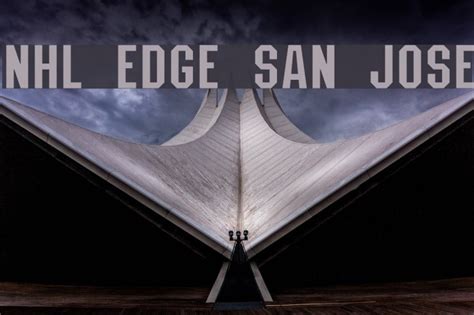
NHL Edge San Jose Font: A Deep Dive
Hey guys! Ever wondered about the specific font used on the San Jose Sharks’ jerseys and other official merchandise? Well, you’ve come to the right place. Let’s dive deep into the world of the NHL Edge San Jose font , exploring its origins, characteristics, and how it contributes to the team’s overall branding. Understanding the nuances of a team’s visual identity can really enhance our appreciation for the sport and the effort that goes into crafting a consistent and recognizable image. So, buckle up, font enthusiasts and hockey fans, as we unravel the mystery behind the San Jose Sharks’ iconic typeface .
Delving into the Origins of NHL Edge Fonts
The NHL Edge font family isn’t just exclusive to San Jose; it’s a broader design initiative implemented across the league. The NHL Edge style was introduced to create a unified, modern, and aggressive look for team branding. You see, consistency is key in sports branding. The font had to be legible on jerseys, merchandise, and digital platforms. The design aimed to capture the speed, power, and dynamism of hockey. While the core Edge concept is shared, each team often has customized variations to align with their unique identity. This means the San Jose Sharks’ version has specific tweaks and features that set it apart, contributing to their distinct visual appeal.
Consider how fonts contribute to the overall feeling of a brand. A rounded, playful font might be great for a children’s product, but it wouldn’t suit the intense, competitive world of professional hockey. The Edge font, with its sharp angles and strong lines, perfectly embodies the sport’s intensity and energy. When the NHL decided to revamp its visual branding, they likely considered many different styles before settling on the Edge concept for its blend of modernity and aggression. It’s a font that looks fast, powerful, and ready for action – just like the players on the ice.
Furthermore, the selection of a font involves more than just aesthetics. It needs to be scalable, meaning it looks good whether it’s printed on a small keychain or emblazoned across a giant banner. It also needs to be easily reproduced across different media, from embroidered patches to high-definition video displays. The NHL Edge font was designed with all these practical considerations in mind, ensuring a consistent and professional look for all its teams, including our beloved Sharks.
Key Characteristics of the San Jose Sharks’ Font
So, what exactly makes the San Jose Sharks’ NHL Edge font unique? Let’s break down some of its key characteristics. First off, you’ll notice the bold , angular design. This isn’t a soft, flowing typeface; it’s sharp, assertive, and commands attention. The use of strong, geometric shapes conveys a sense of power and precision, mirroring the skills and strategy involved in hockey. The font is also highly legible, even at a distance, which is crucial for fans in the stands to easily identify players’ names and numbers.
Another defining feature is the specific letterforms. Pay close attention to the unique cuts and angles in characters like ’S’, ‘J’, and ‘3’. These subtle details are what differentiate the Sharks’ font from other variations within the NHL Edge family. These small customizations make a big difference in creating a cohesive visual identity that aligns with the team’s overall brand. It shows that the Sharks’ organization has put thought and effort into every aspect of their image, including the font they use.
The color scheme also plays a vital role. While the font itself is a specific design, its impact is amplified by the colors used to render it. The Sharks typically use teal, black, and white for their jerseys and merchandise. The font is often rendered in white with a teal or black outline, creating a striking contrast that enhances its visibility. The colors are integral to the Sharks’ identity. Therefore, it’s a good idea to coordinate with the font to ensure it is cohesive and visually appealing. The combination of the bold font and the iconic color palette contributes significantly to the Sharks’ recognizable brand.
Beyond the individual letters, consider the overall spacing and kerning of the font. Kerning refers to the space between individual letters, and proper kerning is essential for readability and visual appeal. A well-kerned font appears balanced and harmonious, while poorly kerned font can look awkward and unprofessional. The San Jose Sharks’ font is carefully kerned to ensure optimal readability and a polished aesthetic. It is a subtle detail that contributes to the overall impression of quality and attention to detail.
The Font’s Impact on the San Jose Sharks’ Branding
The NHL Edge font is more than just a typeface; it’s an integral part of the San Jose Sharks’ brand identity. It reinforces the team’s image of strength, speed, and precision. From jerseys to marketing materials, the consistent use of this font helps create a unified and recognizable brand experience for fans. Think about seeing the Sharks’ logo or a player’s name on a jersey – the font is instantly recognizable and evokes a feeling of connection to the team. Consistent branding builds loyalty and helps fans feel like they’re part of something bigger.
Consider the fan experience. When you buy a Sharks jersey, you’re not just buying a piece of clothing; you’re buying into the team’s identity. The font on the jersey contributes to that feeling of belonging and pride. When you see other fans wearing the same jersey with the same font, you feel a sense of camaraderie and shared passion. The font, therefore, becomes a symbol of unity and a visual representation of the Sharks’ fanbase.
Conclusion: The Lasting Legacy of a Font
In conclusion, the NHL Edge San Jose font is more than just a collection of letters; it’s a vital component of the team’s identity. Its bold design, unique characteristics, and consistent use contribute significantly to the Sharks’ brand recognition and fan loyalty. By understanding the history and nuances of this font, we gain a deeper appreciation for the effort and thought that goes into creating a successful sports franchise. So, the next time you see the San Jose Sharks’ font , take a moment to admire its design and consider its impact on the team’s overall image. It’s a small detail, but it makes a big difference in creating a cohesive and compelling brand experience. And that’s all for now, folks! Hope you enjoyed this deep dive into the Sharks’ font!